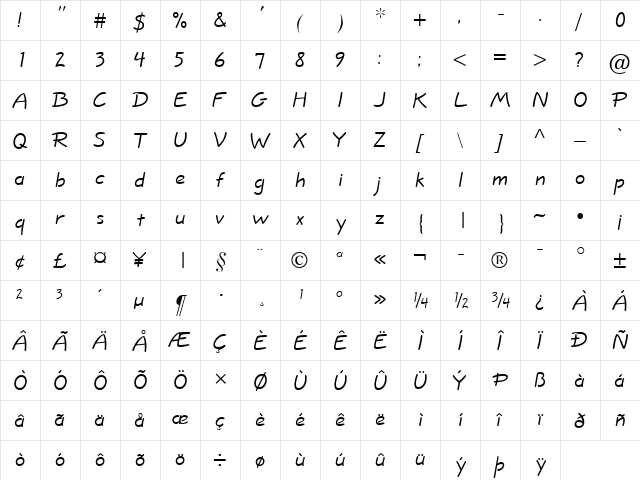
Short Hand Heavy Normal
Design Context for Short Hand Heavy Typeface
Short Hand Heavy flows with the natural rhythm of handwritten lettering, making it ideal for designs that call for warmth and personal expression.
Font Pairing: Combine Short Hand Heavy with a simple geometric sans for maximum contrast — the tension between flowing curves and clean structure is a classic typographic pairing.
Pro Tip: Use Short Hand Heavy for short runs of text — names, titles, or taglines. Extended body copy in script faces tires the eye quickly.